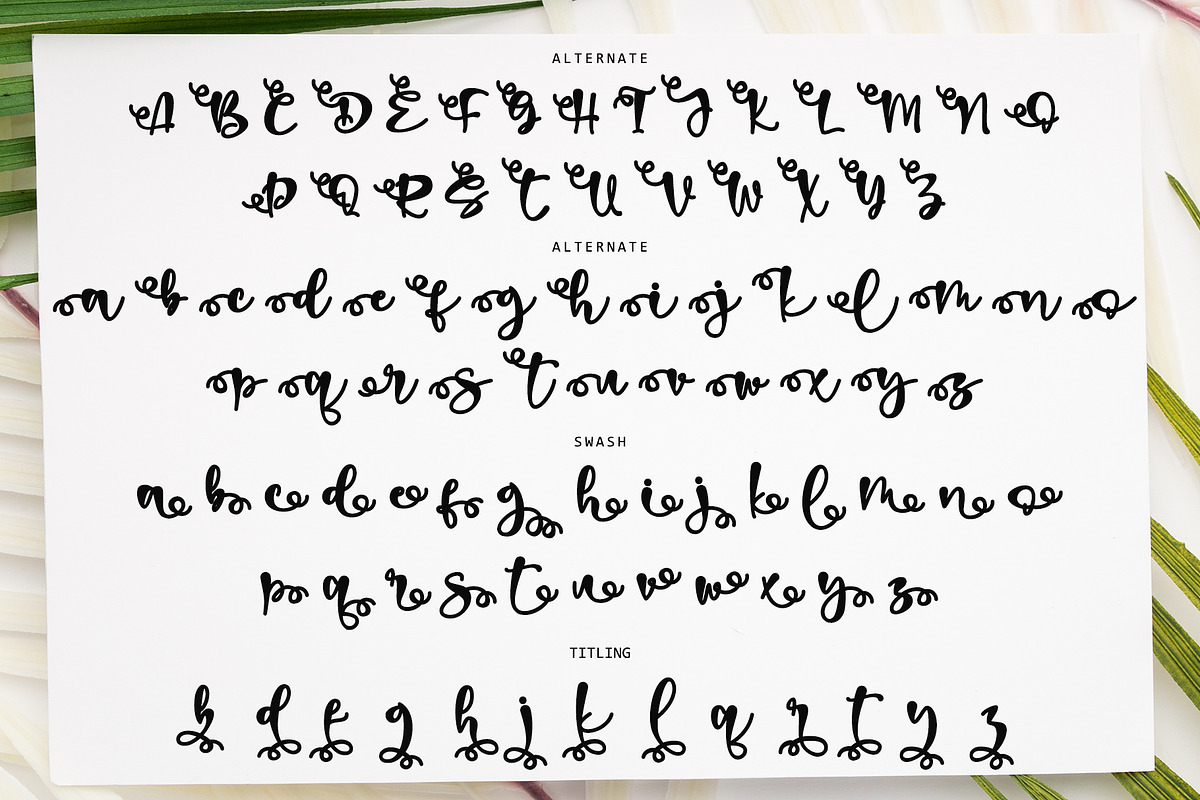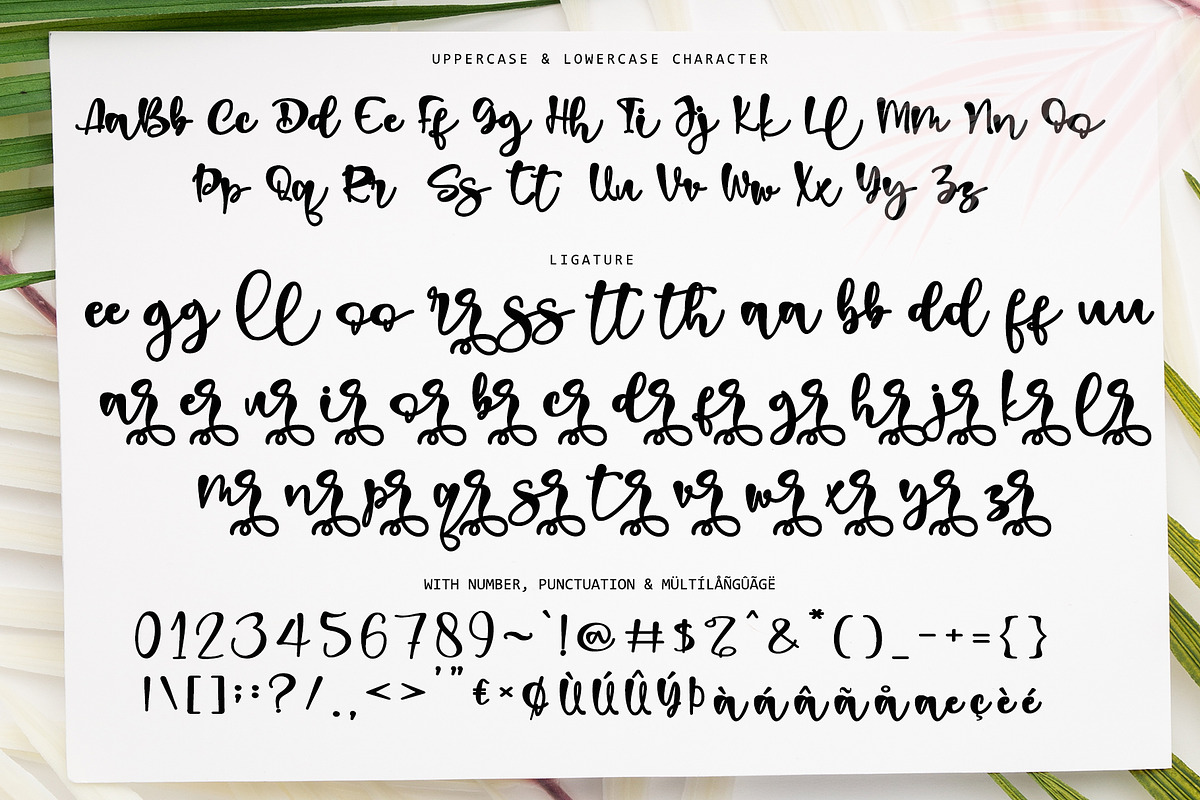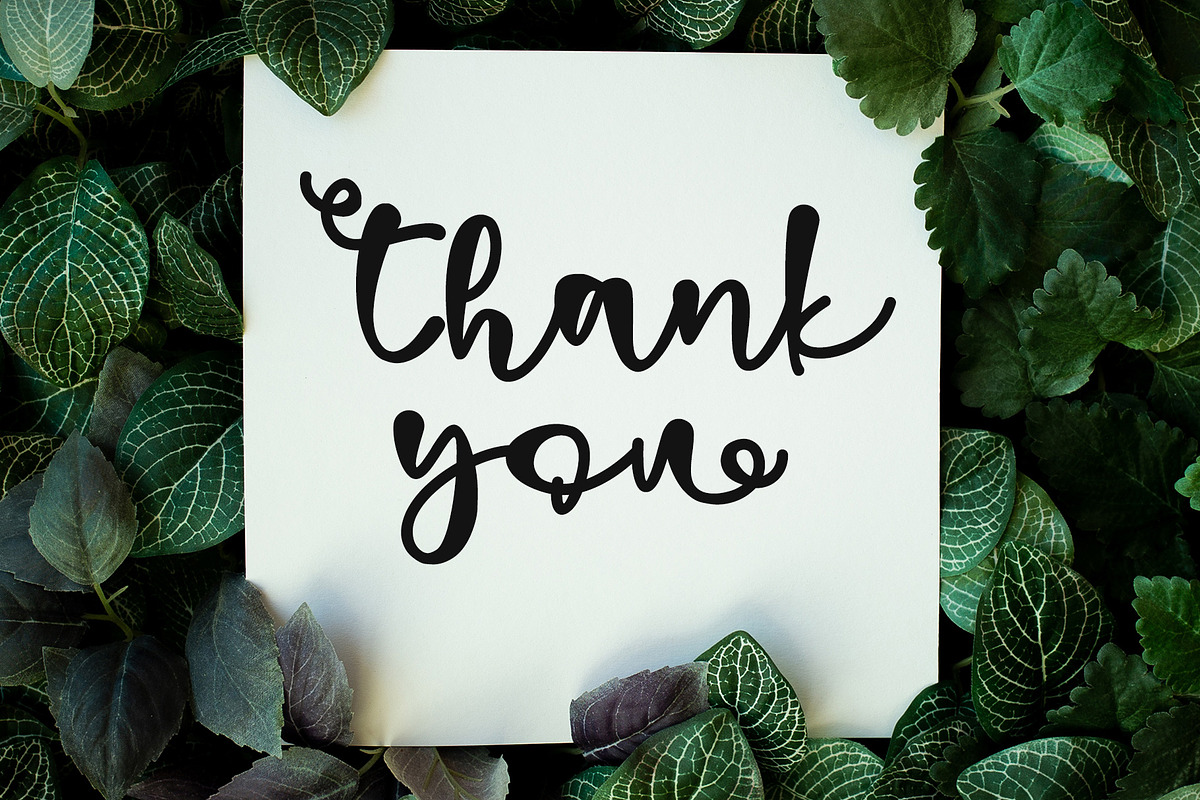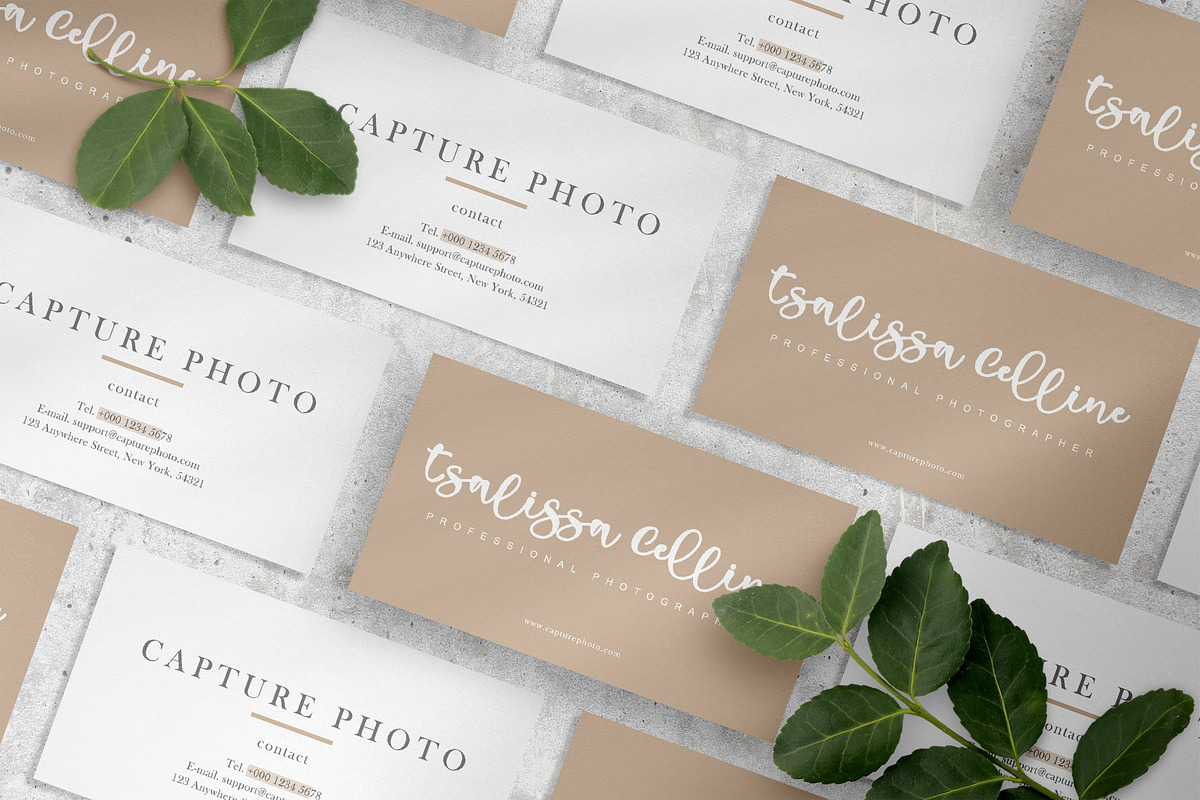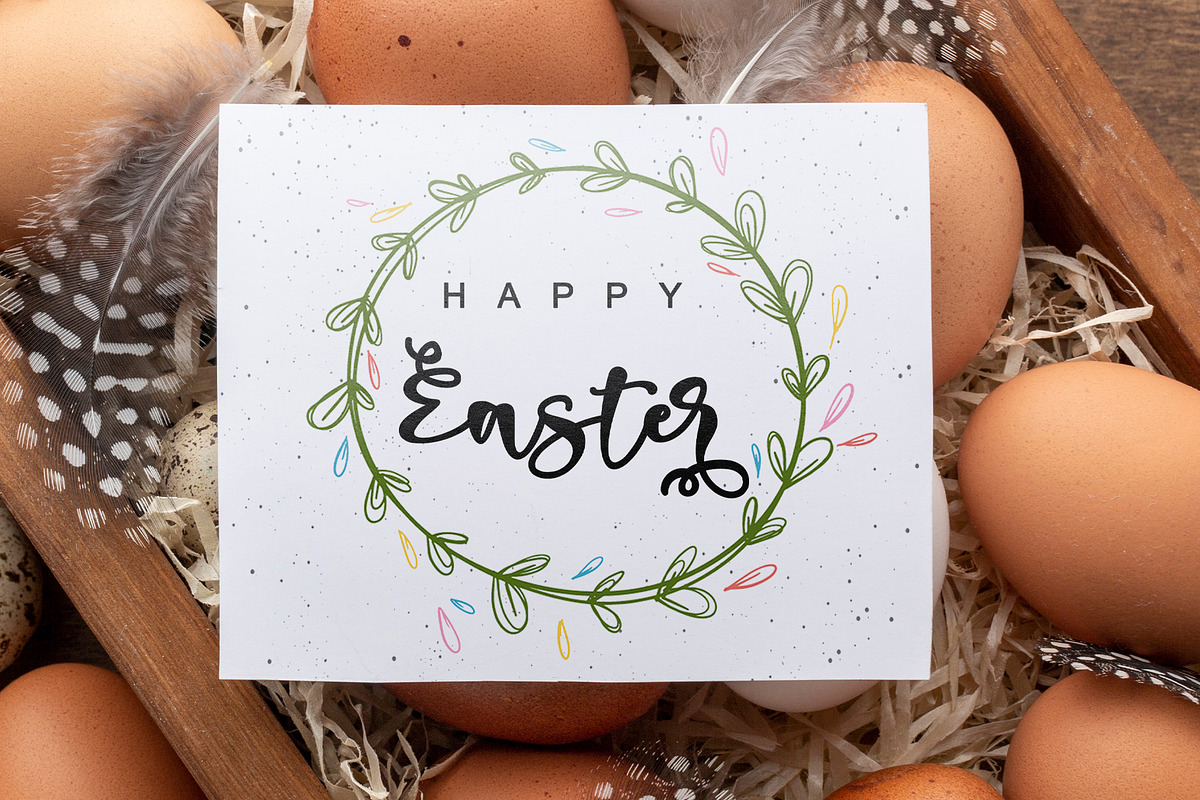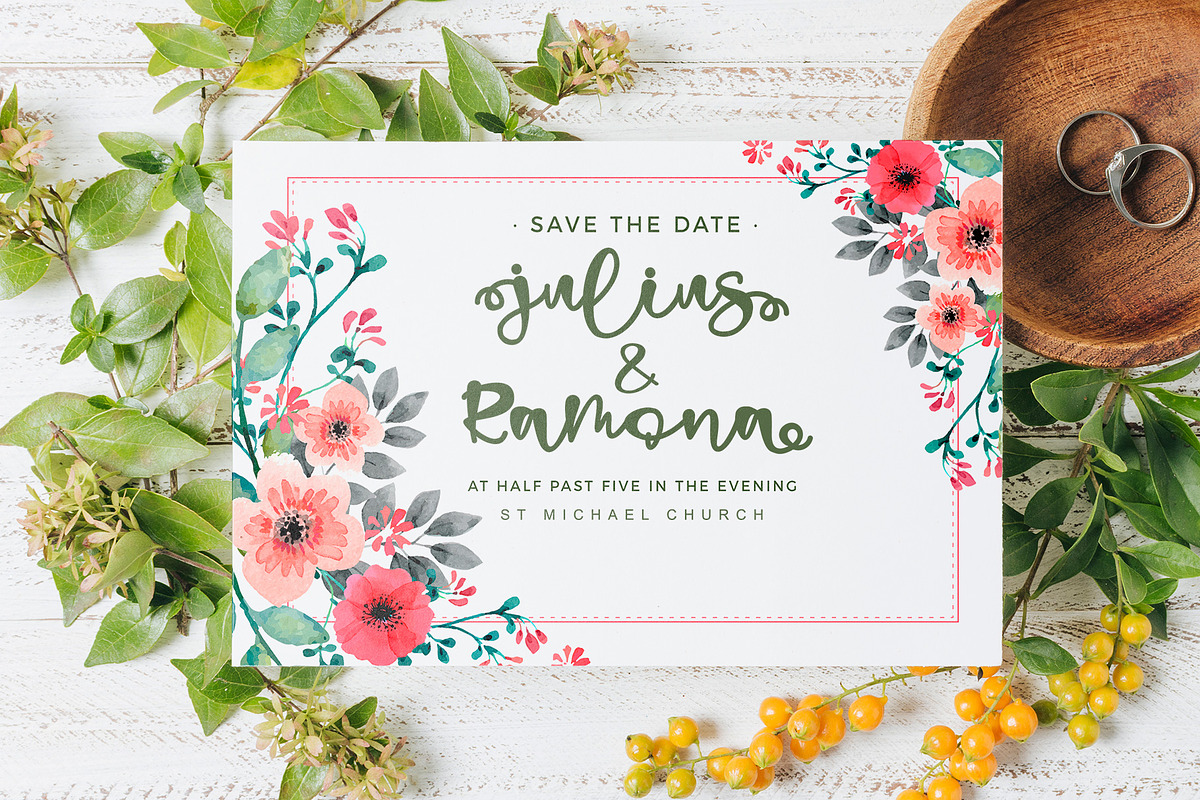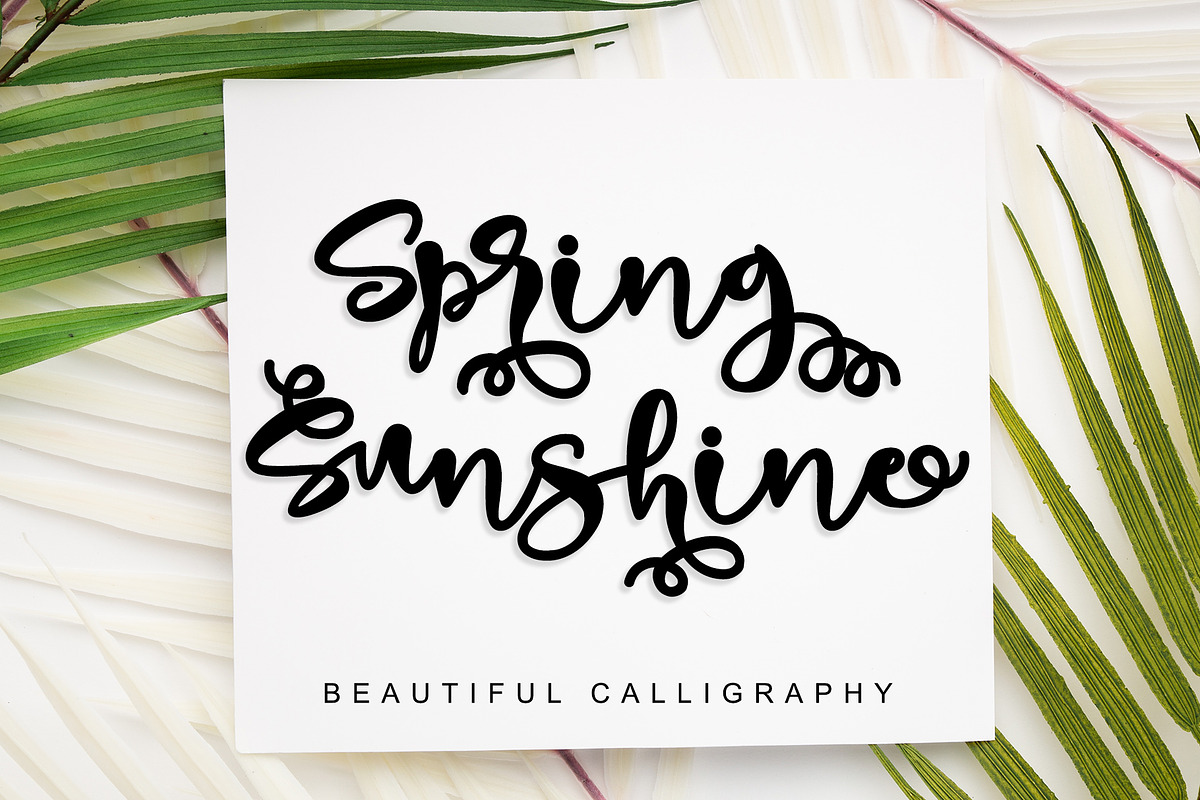
Spring Sunshine
Spring Sunshine is a beautiful light handwritten font with a unique feel and looks stunning. This gentle font will look gorgeous on a variety of design ideas. This font is PUA encoded which means you can access all of the amazing glyphs and swashes with ease! It also features a wealth of special features including alternate glyphs and ligatures.
- Many features: Uppercase Alternate, lowercase Alternate, Swash, Ligature, and Titling
- Support multilingual; ä ö ü Ä Ö Ü ß ¿ ¡